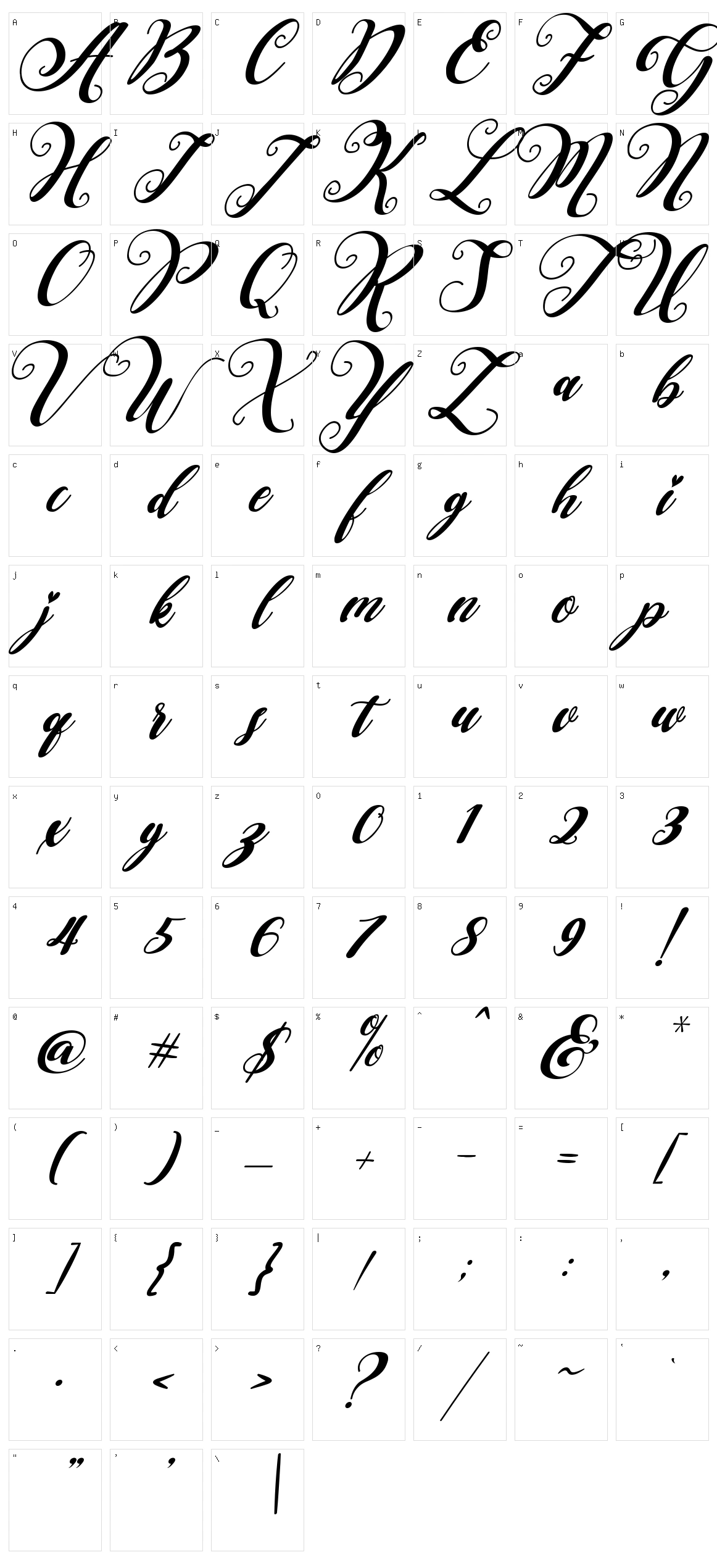
The free font Falencia is carefully designed by Kong Font, showcasing a thoughtful balance of creativity and usability and falls under the Script font style. When you download the ZIP file, it contains only 478.36 KB of font files, making it lightweight and quick to download. Please review the license details below to understand permitted usage and distribution rights. If license information is not available, we recommend using this font for personal projects only or contacting the author directly for commercial usage permissions.